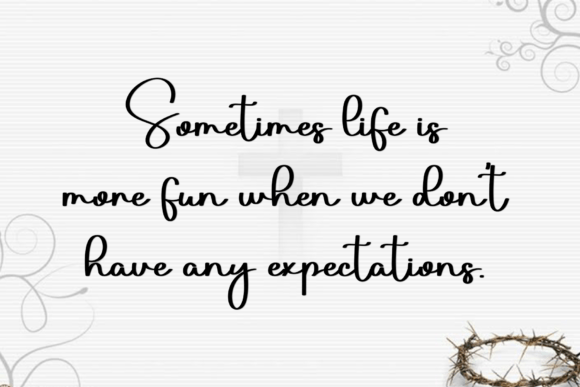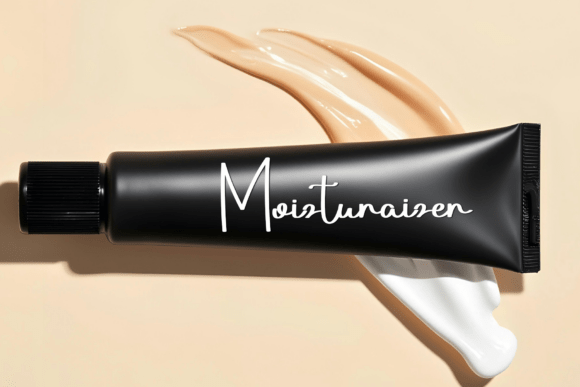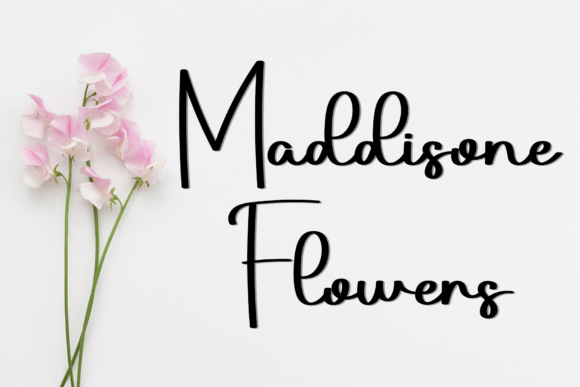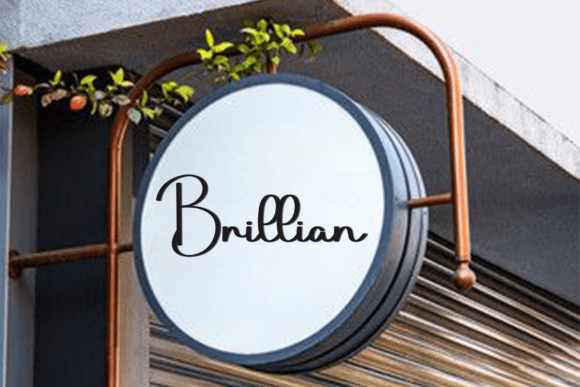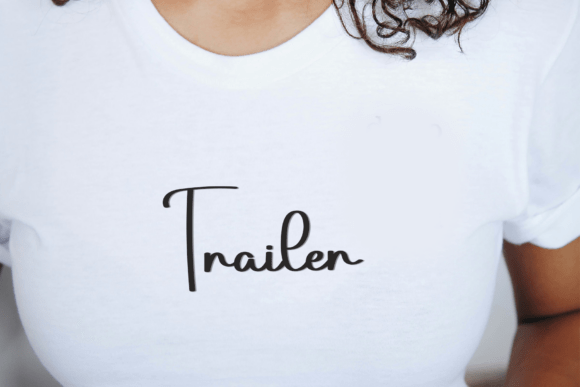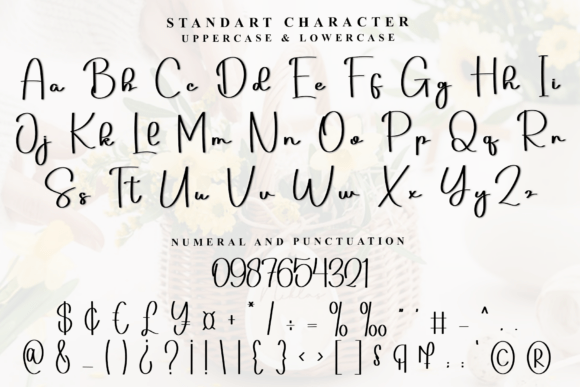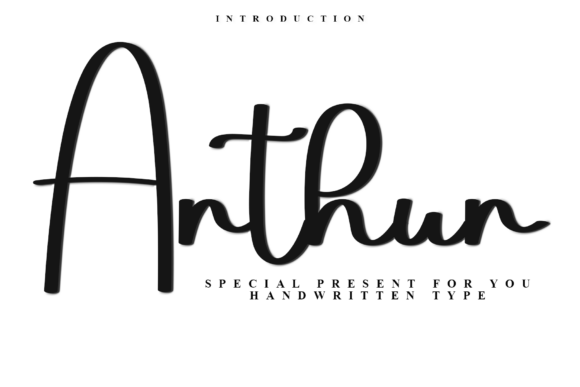
The Magic of Arthur Font: Elevate Your Holiday Designs
It’s that time of the year again – the season of joy, giving, and of course, designing. I still remember the year I was tasked with creating a festive holiday card for a client’s family. I spent hours scrolling through font libraries, searching for the perfect typeface that would capture the essence of the season. That’s when I stumbled upon Arthur Font, a gem that instantly brought my design to life. In this article, I’ll share with you why Arthur Font is a must-have for your holiday projects, its features, and how to make the most of it.
A Festive Favorite: What I Love About Arthur Font
Arthur Font is more than just a typeface – it’s an experience. Here are a few things that make it stand out:
- ✨ Festive and merry vibe: Perfect for holiday-themed projects, greeting cards, and gift tags.
- ✅ Whimsical flair: Adds a touch of enchantment to your designs.
- 🎉 Decorative elements: Includes a range of glyphs and ligatures to make your typography shine.
The Honest Review: A Balanced Look
While Arthur Font is a fantastic addition to any designer’s toolkit, there are a few quirks to be aware of:
- 🤔 Limited use outside of holiday themes: While it’s versatile, Arthur Font is specifically designed for festive projects.
- ⚠️ May require some exploration: With so many glyphs and ligatures, it might take some time to get familiar with all the features.
The Story Behind Arthur Font
Arthur Font was designed with the holiday season in mind. Its creator aimed to craft a typeface that would evoke the magic and wonder of the festive period. With its decorative elements and whimsical flair, Arthur Font is sure to bring a smile to anyone’s face.
| Is Arthur Font suitable for body text? | While Arthur Font is beautiful, it’s primarily designed for headlines and decorative purposes. For body text, consider a clearer, more readable font. |
Arthur Font is a delightful addition to any designer’s toolkit, especially during the holiday season. With its whimsical flair and decorative elements, it’s sure to bring a touch of magic to your projects. Whether you’re designing greeting cards, gift tags, or holiday-themed projects, Arthur Font is the perfect choice.